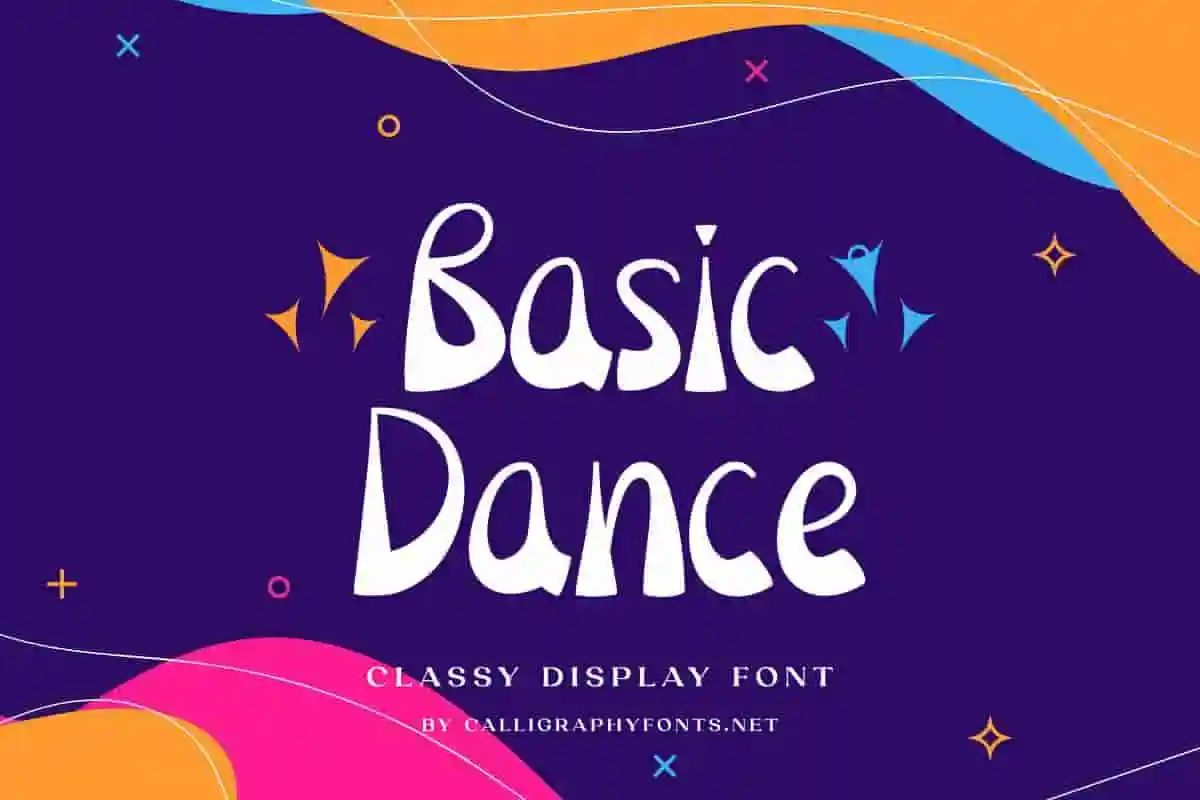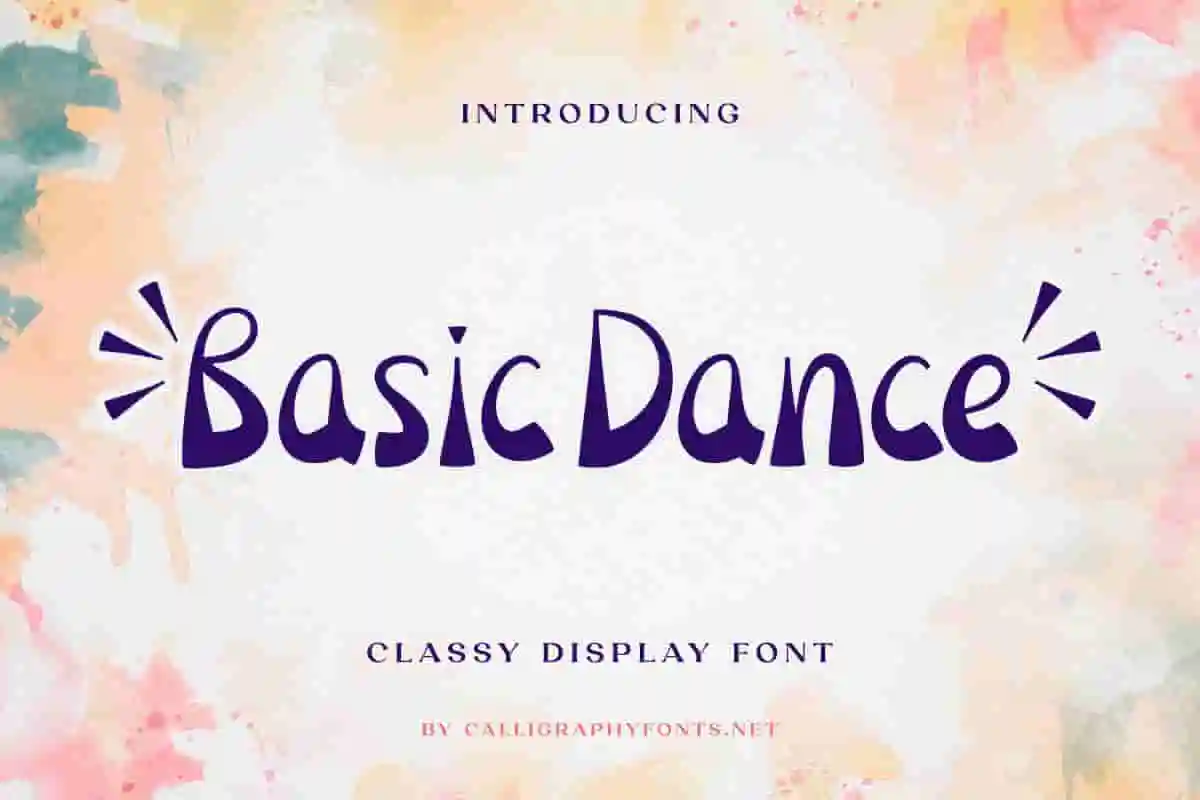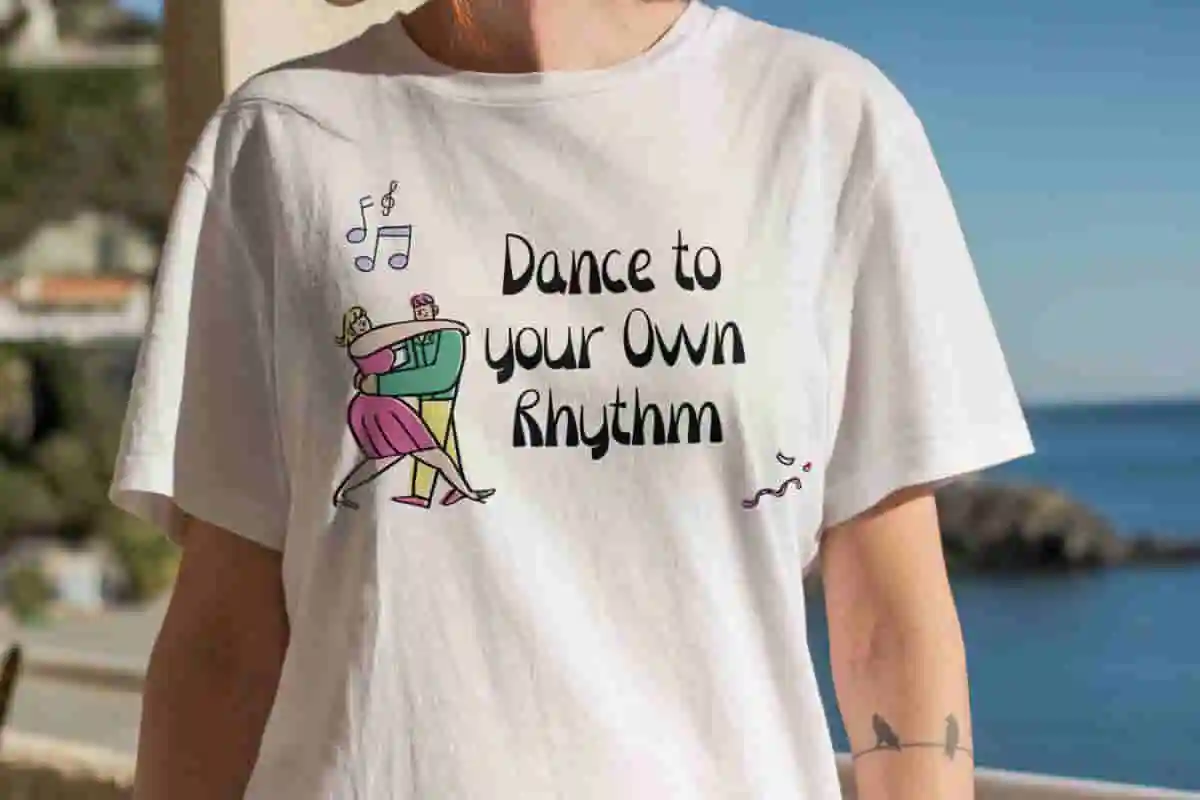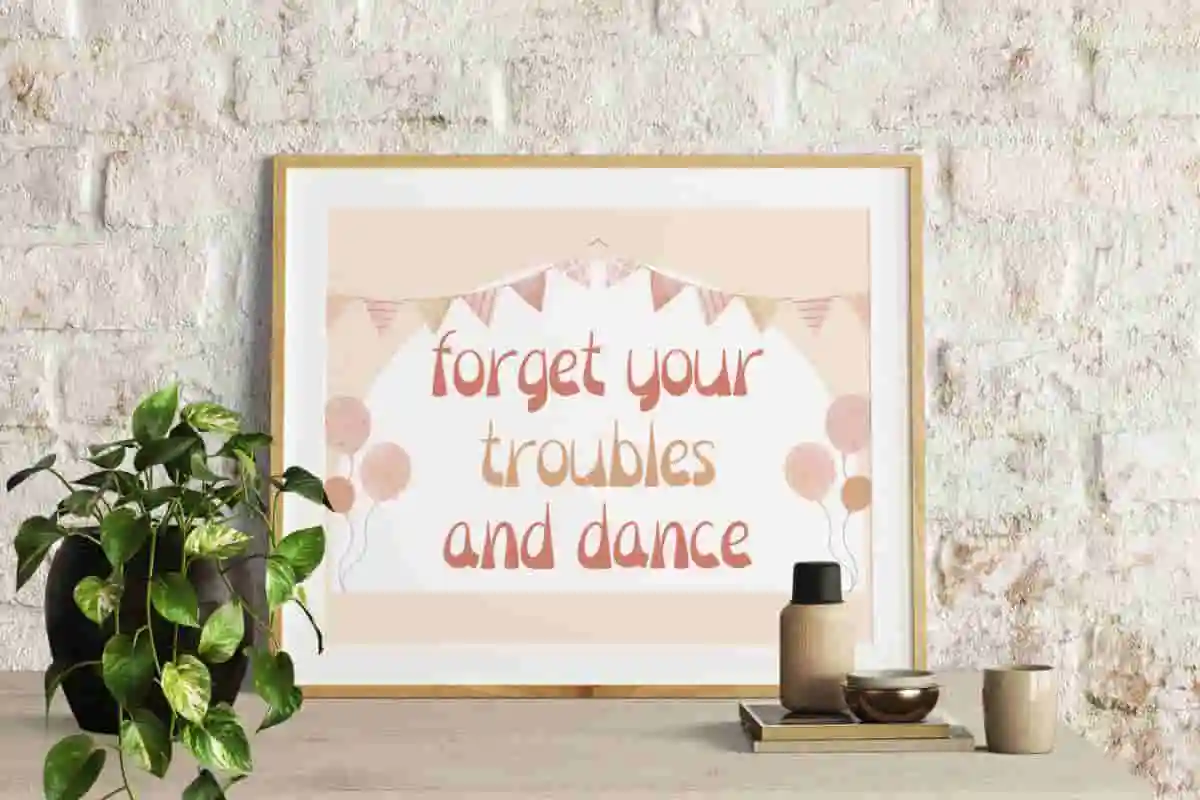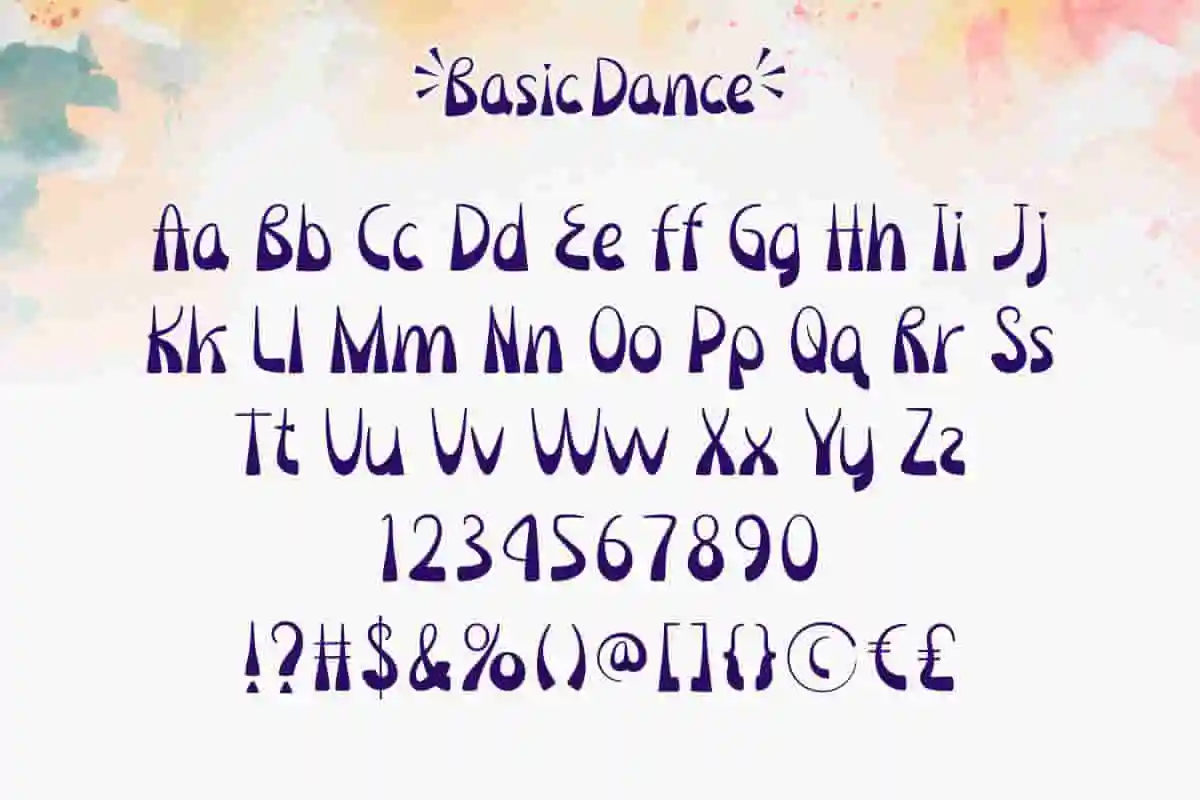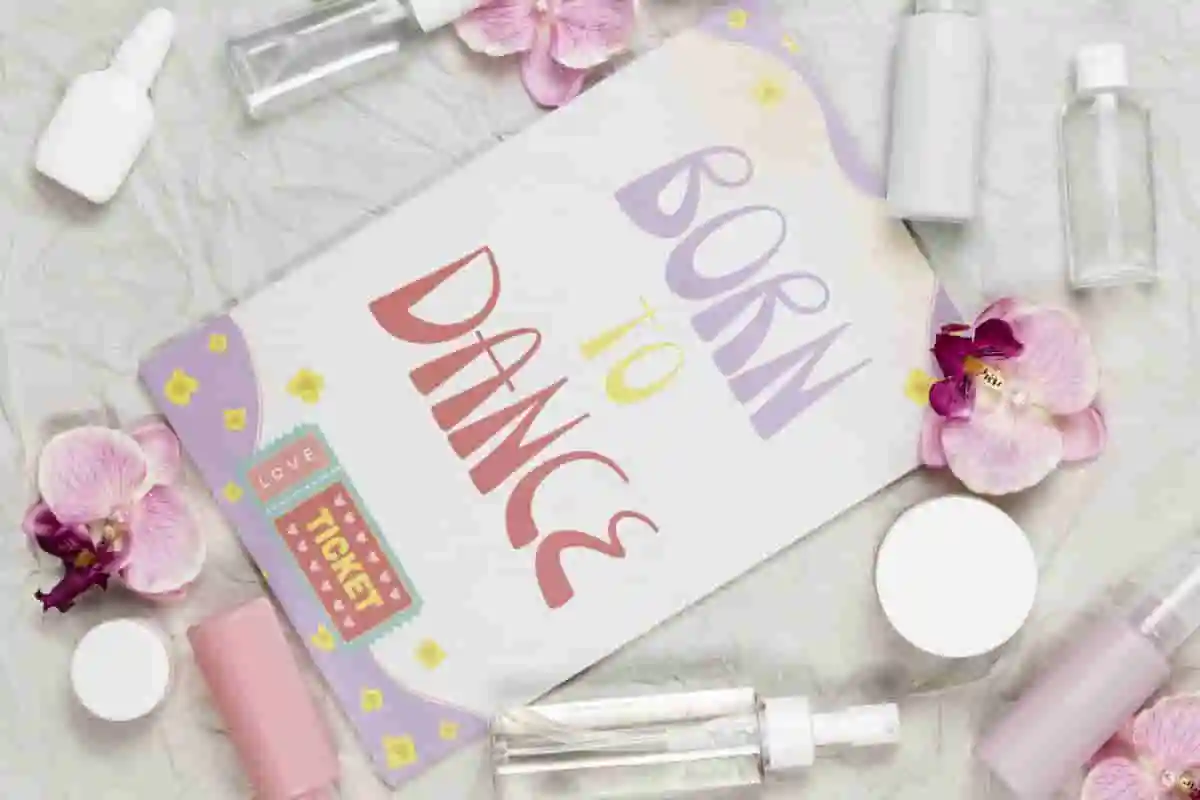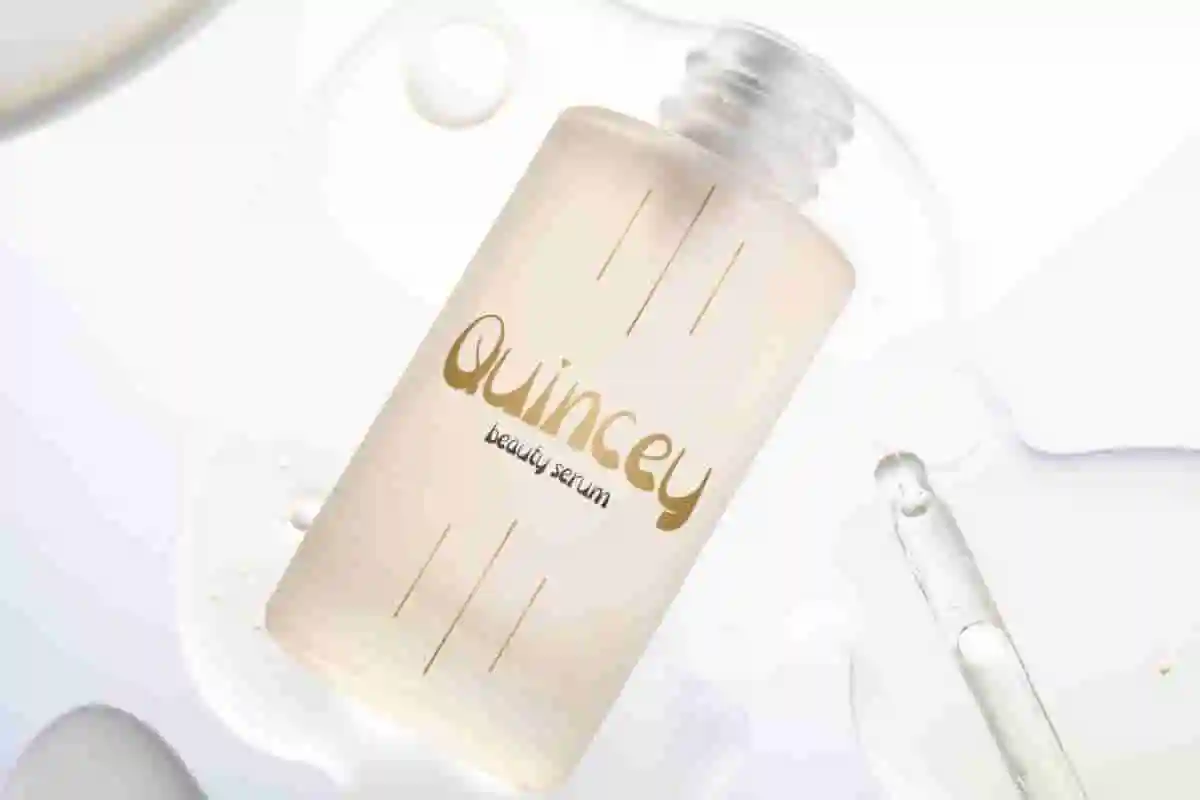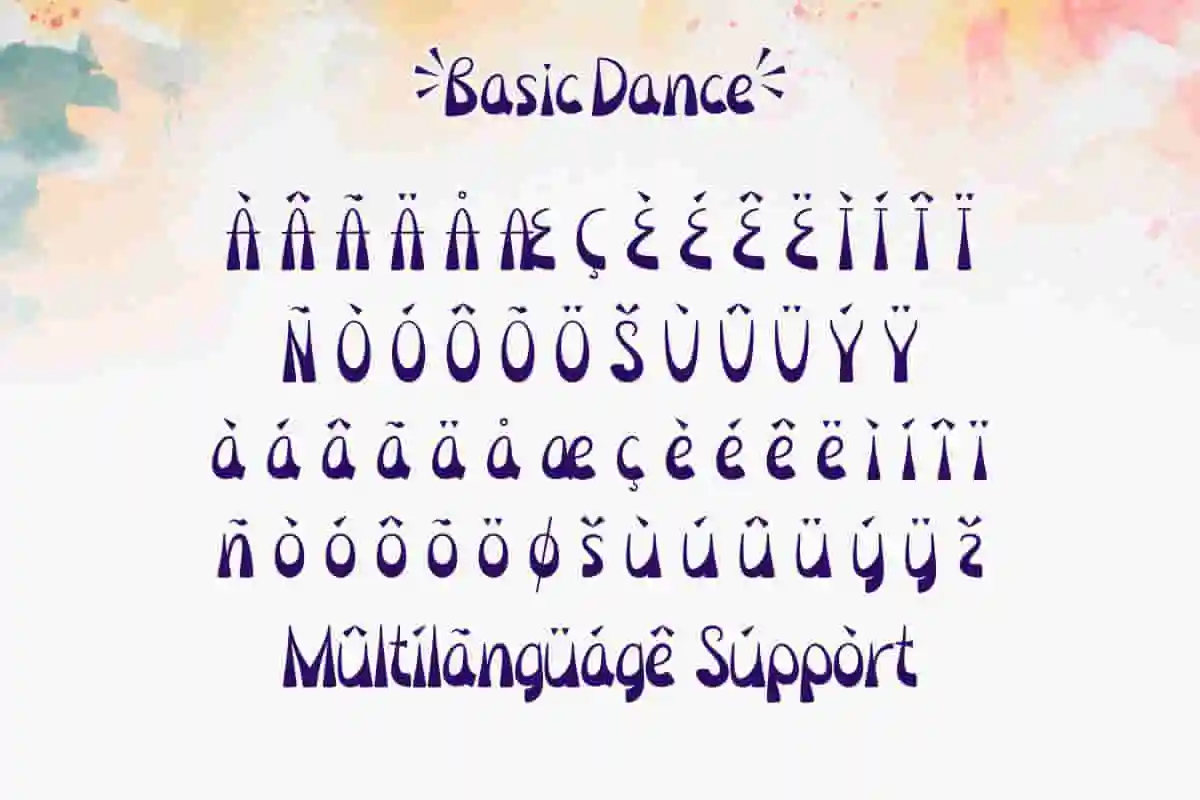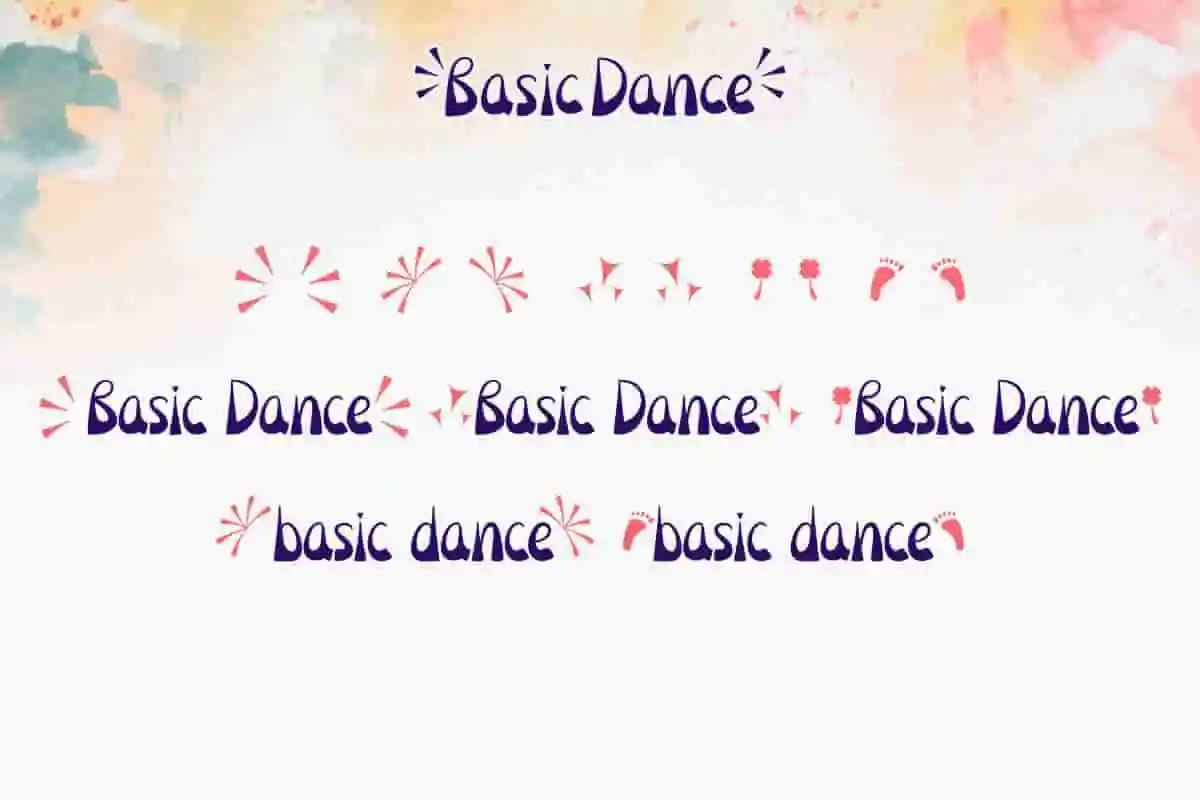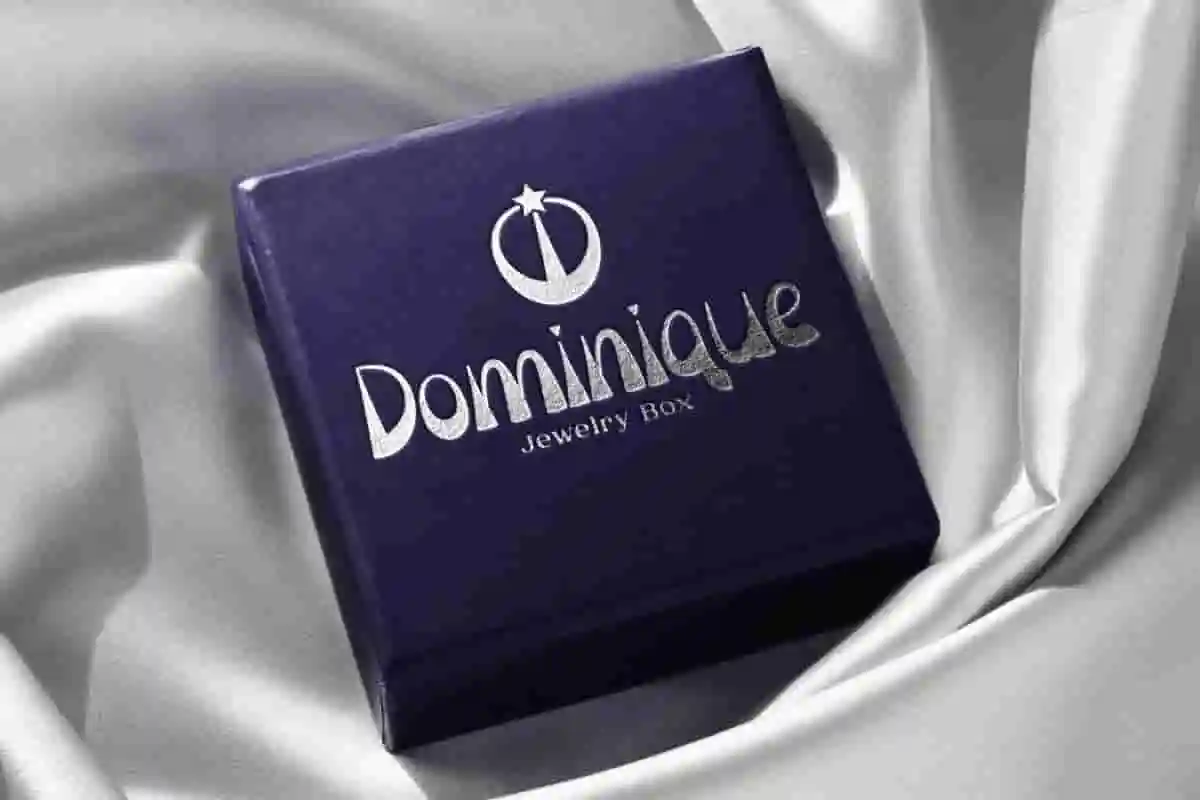
Basic Dance Display Font
Basic Dance Font is a fun yet classic display font inspired by the dance concept. The font will be great for billboard, birthday party, concert tickets, fashion, labels, movies, or anything that requires a fun style of dance.
Basic Dance Font is a fun yet classy display font with playful look, created by CalligraphyFonts. This font has a unique thickness at the bottom of each letter and will be ideal for your many industries, such as artist, boutique, cosmetic, event planner, jewelry, movie, music, and anything that requires stylish uniqueness.
Looking for a bold, fun, and attention-grabbing typeface? Meet Basic Dance Display Font, a vibrant and dynamic font that adds rhythm and movement to your creative projects. Designed with modern display aesthetics, this font is perfect for making your text stand out and leaving a lasting impression.
Basic Dance Display Font is not just another typeface—it’s a statement. With its sharp edges, bold shapes, and playful character, it’s ideal for posters, flyers, headlines, logos, event branding, and social media graphics. Whether you’re designing for a music festival, dance competition, party invitation, or trendy brand, this font will capture the excitement and energy of your message.
Easy to use across multiple platforms, Basic Dance Display Font works seamlessly in print and digital designs. It’s versatile enough to pair with minimal body text or stand alone as a bold centerpiece.
If you want a font that radiates confidence and creativity, Basic Dance Display Font is your perfect choice. Bring rhythm, style, and energy into your work today—make every word dance!
Basic Dance Display Font will be perfect for any creative project including : billboard, brand logo, product packaging, label, quote, screen printing, stationery, title, and good for your secondary text font with script. Made with care so as to create perfection in writing and add aesthetics as well as fun to every design made.
Basic Dance Display Font comes with a full set of Uppercase and Lowercase Basic Characters, Number, a large range of Punctuation and Symbol, and also supports multilingual characters. Ready to use both on Windows machine or Mac with simple installations. It’s tested to work well in the Adobe Apps (Illustrator, Adobe InDesign, Adobe Photoshop) CorelDraw, and others. PUA Encode Characters means you can access all the glyphs and swashes with ease – Fully accessible without additional design software.